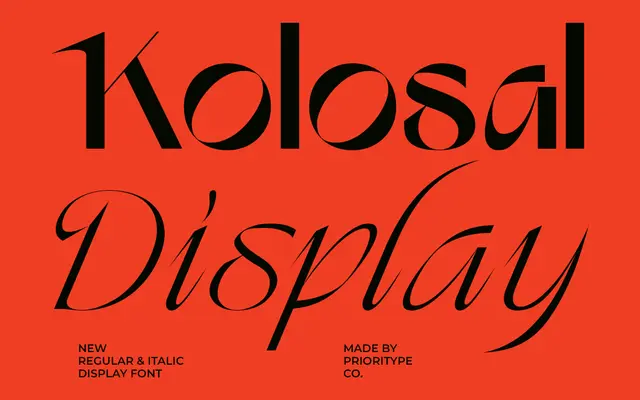
Kolosal Display
Prioritype · 2025
A bold display serif in two styles — upright and italic — aimed at posters, branding and fashion-adjacent work.
Kolosal Display offers a single weight in regular and italic cuts, with the upright positioned as heavy and commanding and the italic as a lighter, more refined companion. Language coverage is broad, spanning Latin-script languages across Europe and Africa. The overall offering is thin — one weight, two styles — and the design sits in generic display serif territory without a particularly distinctive voice.
Tagged and styled as a display serif with bold, attention-commanding letterforms and a companion italic; the page references poster and branding use cases typical of display serifs.